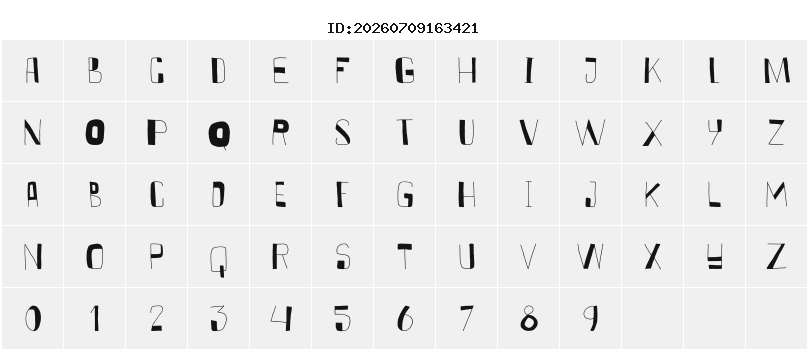
DK Kurkuma Preview
• Font Name: DK Kurkuma
• Designer: David Kerkhoff
• Manufacturer: David Kerkhoff
About DK Kurkuma.otf
DK Kurkuma.otf is a modern, elegant sans-serif font designed for ultimate readability and visual harmony. Perfect for branding, headlines, web design, and print materials.